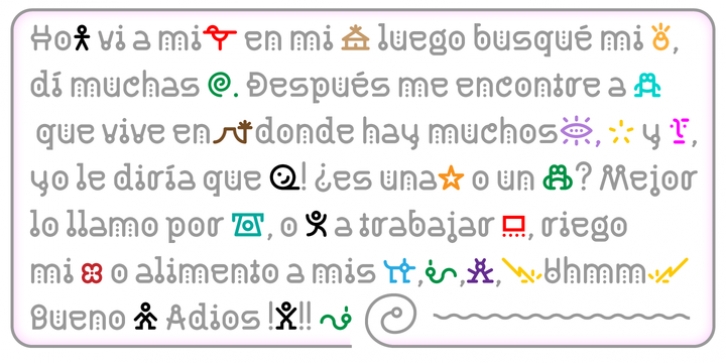
Palaima is a geometric display font, its name means word-image and is inspired by our aboriginal pictographs, Palaima was created to compose texts informal, where each character is an entertainment, featuring several variations of this font letters to make more enjoyable composition. Palaima has a set of characters that include swash, stylistic alternates, ligatures, fractions and twenty funny icons.
Palaima was selected in the third Biennial of Latin American Typography “Tipos Latinos” also was honored by the Ruben Fontana’s JournalTipográfica of Argentina “Best Latin American Typographic Creativity”.